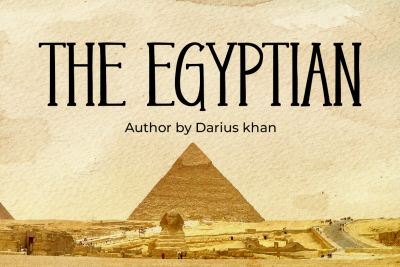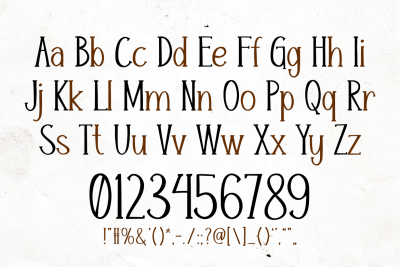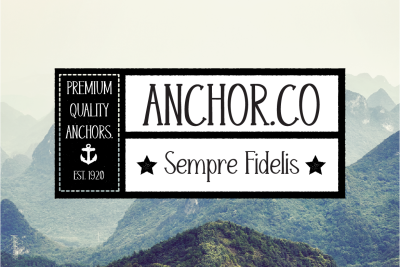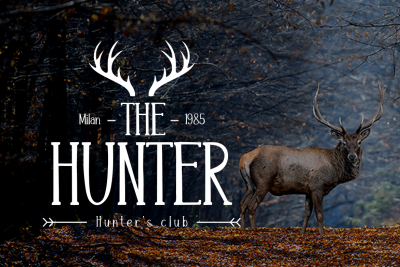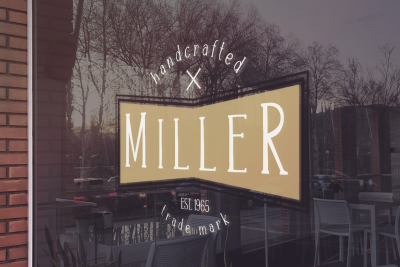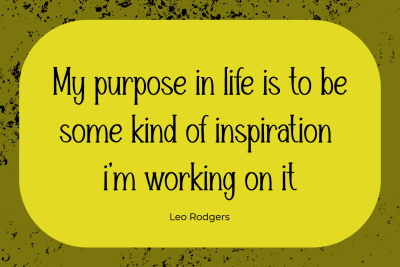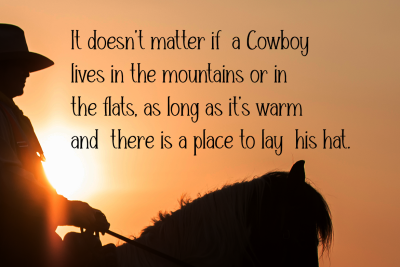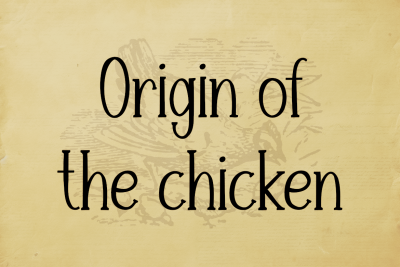
Handwriting Font CARDONS is a unique and stylish typeface that brings a handcrafted, vintage feel to any design. With its bold, elegant strokes and slightly irregular letterforms, CARDONS captures the charm of hand-drawn typography while maintaining readability and versatility. This font is perfect for designers looking to add a touch of personality and nostalgia to their work.
Inspired by traditional lettering and vintage signage, CARDONS combines classic aesthetics with a modern twist. Its tall and slightly condensed letterforms create a striking visual impact, making it ideal for headlines, branding, and editorial designs. The smooth yet organic flow of each character ensures a natural and authentic handwritten appearance, perfect for projects that need a warm, handmade feel.
Furthermore, CARDONS is highly adaptable, allowing it to complement a variety of creative styles. Whether you’re designing logos, posters, packaging, or social media graphics, this font brings a distinctive and memorable touch to every composition. The balance between boldness and elegance makes it a reliable choice for projects that require both sophistication and character.
Who is Handwriting Font CARDONS For?
CARDONS is an excellent choice for creatives, designers, and businesses that want to stand out with a stylish, vintage-inspired font. This typeface is particularly well-suited for:
- Branding & Logo Designers: CARDONS works beautifully for boutique brands, artisan businesses, and vintage-inspired logos that need a unique handcrafted appeal.
- Editorial & Publishing Projects: Ideal for book covers, magazine headlines, and blog titles, providing a sophisticated yet artistic look.
- Cafe & Restaurant Branding: Perfect for menus, signage, and packaging, giving businesses an inviting and handcrafted feel.
- Event & Wedding Invitations: Adds an elegant and personal touch to invitations, thank-you cards, and stationery.
- Retro & Vintage-Themed Designs: Whether you’re creating posters, apparel graphics, or labels, CARDONS enhances the nostalgic charm of any project.
No matter your creative vision, Handwriting Font CARDONS delivers a bold yet graceful handwritten aesthetic that elevates any design. Its timeless appeal and handcrafted nature make it an essential choice for designers who want to create eye-catching, memorable, and stylish visuals. Whether for digital or print, CARDONS ensures that your work leaves a lasting impression.